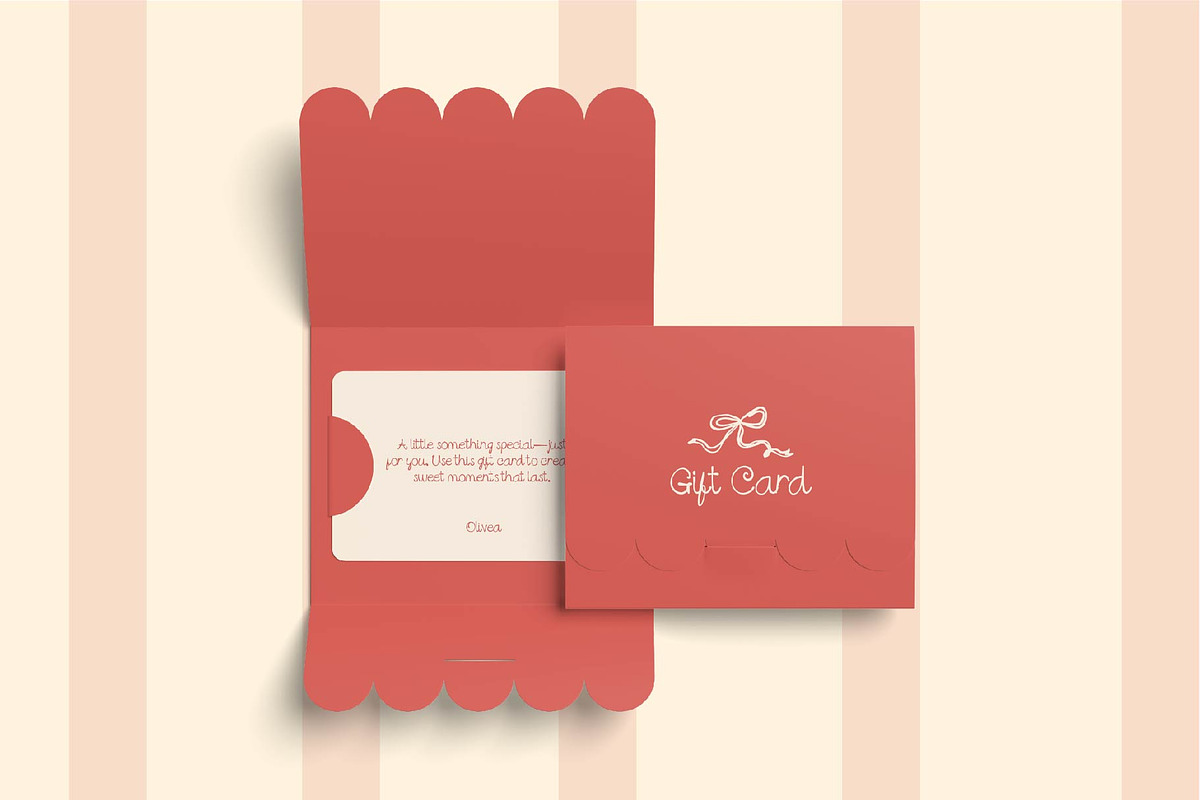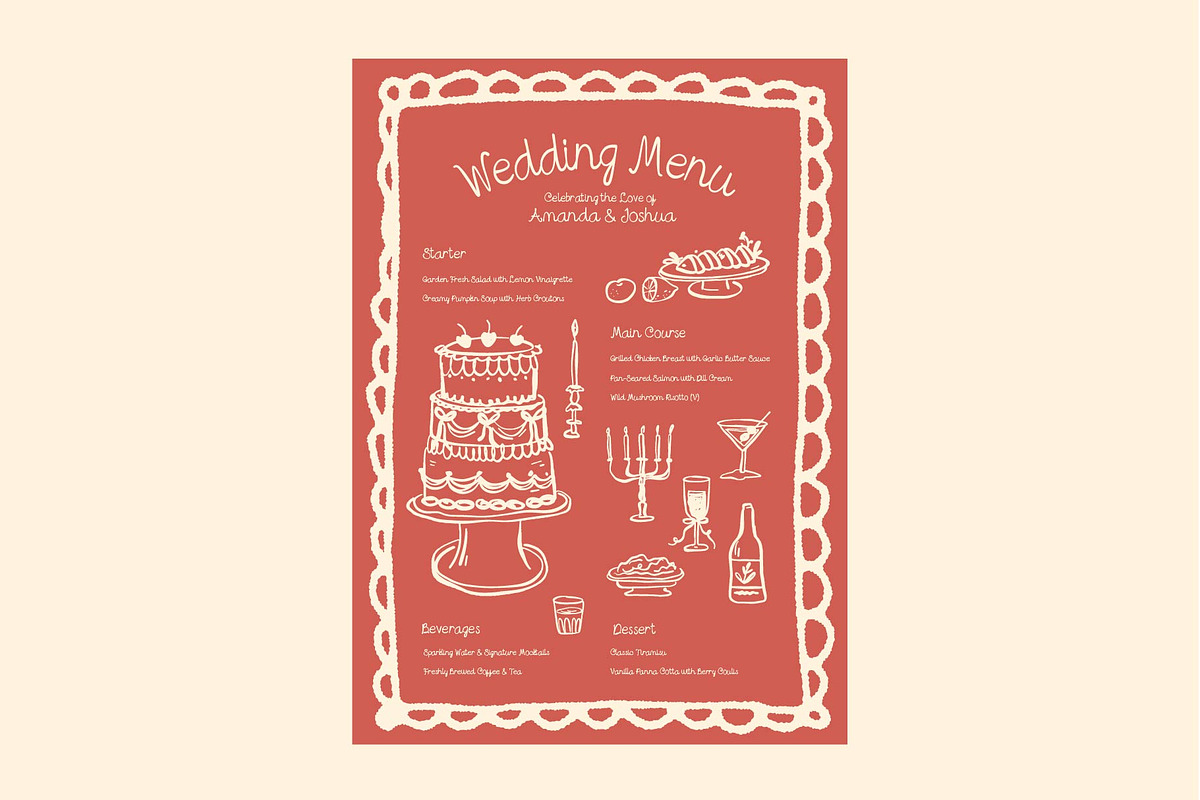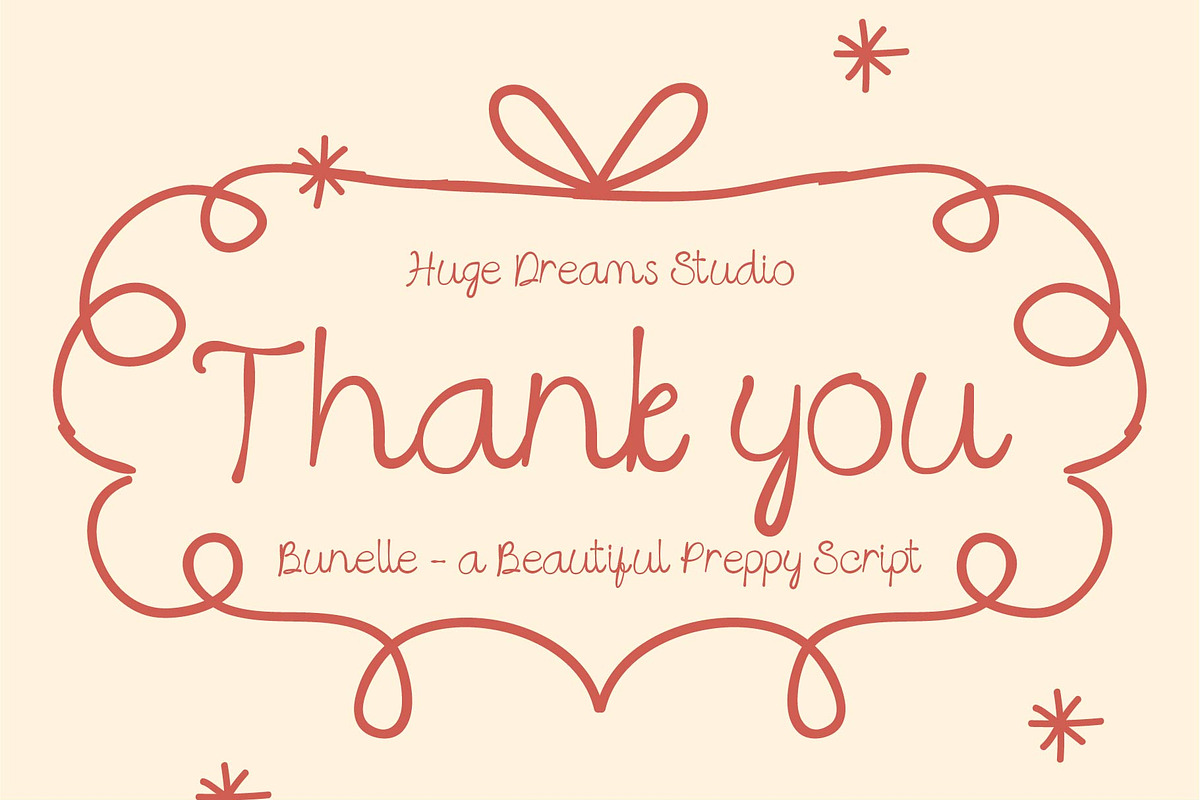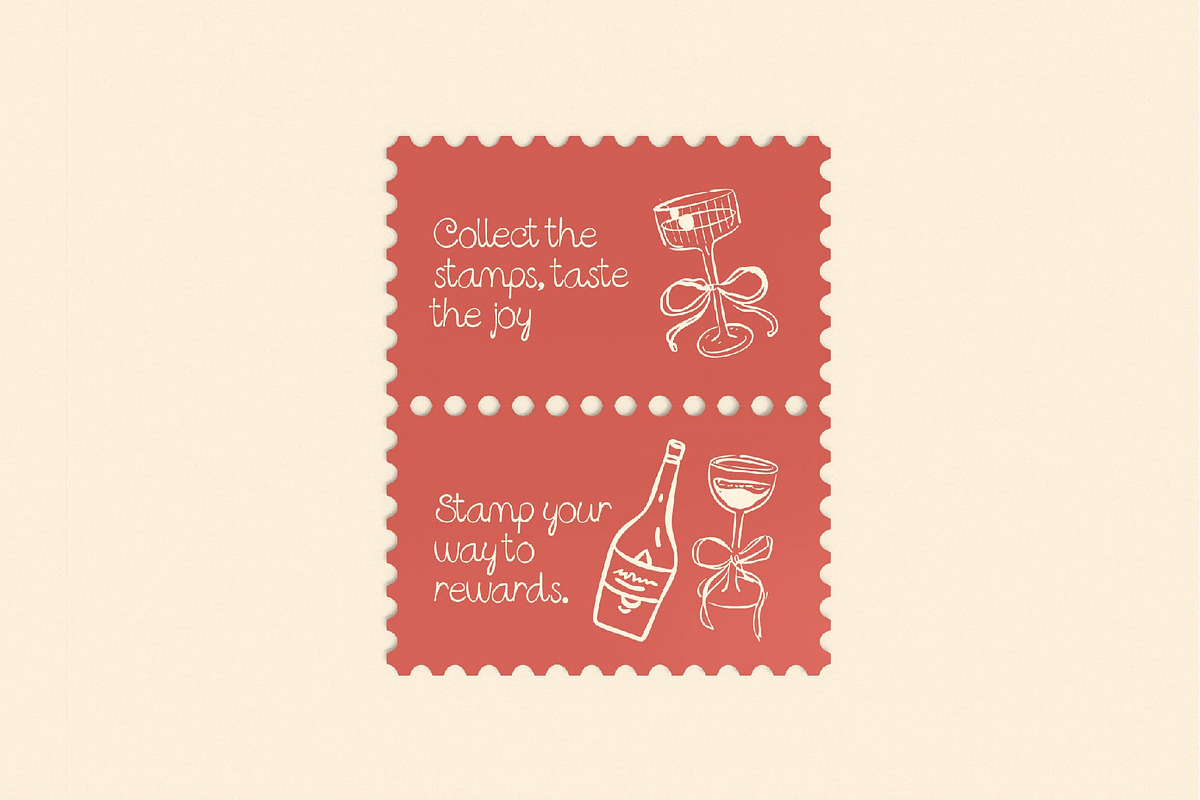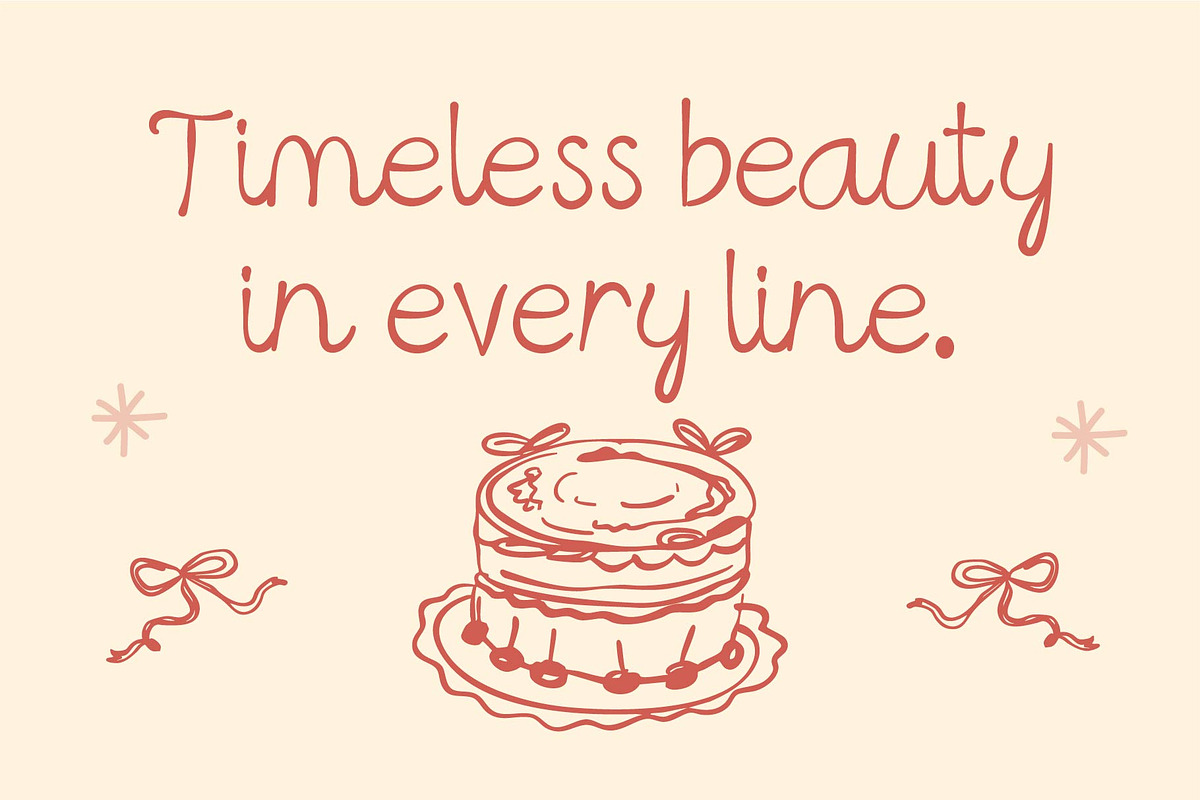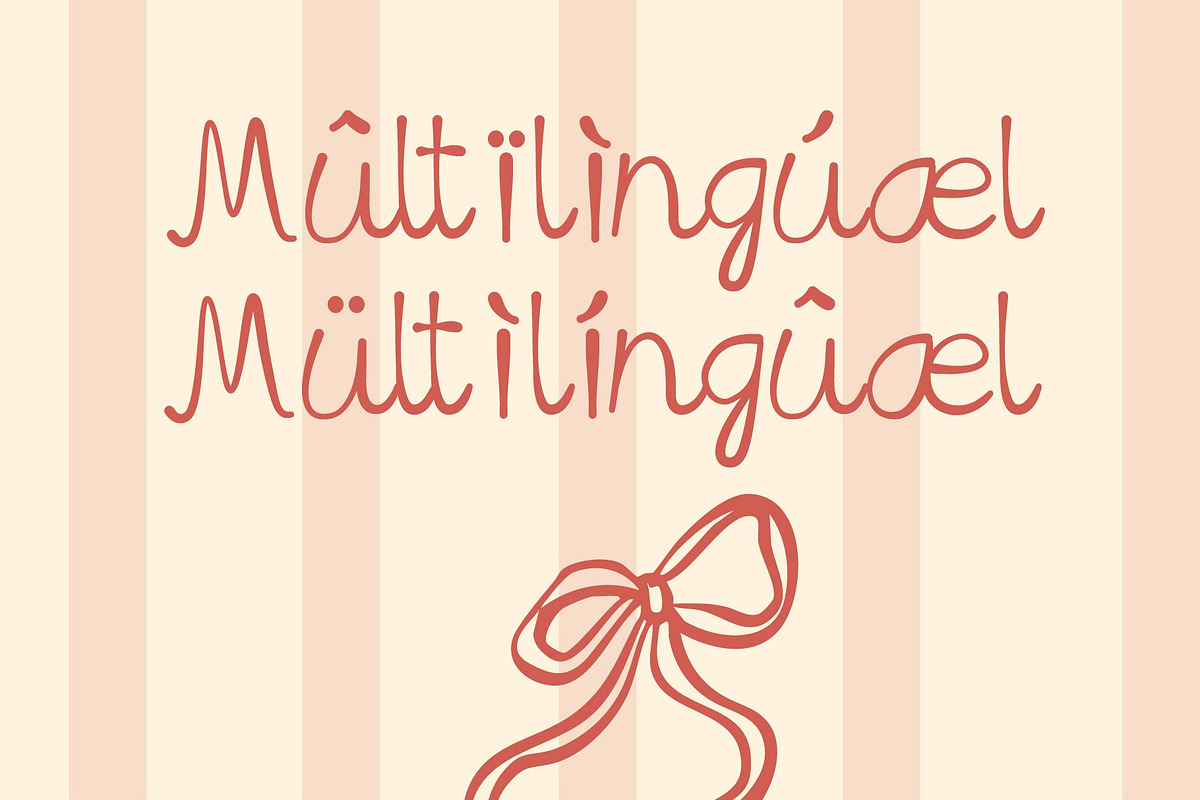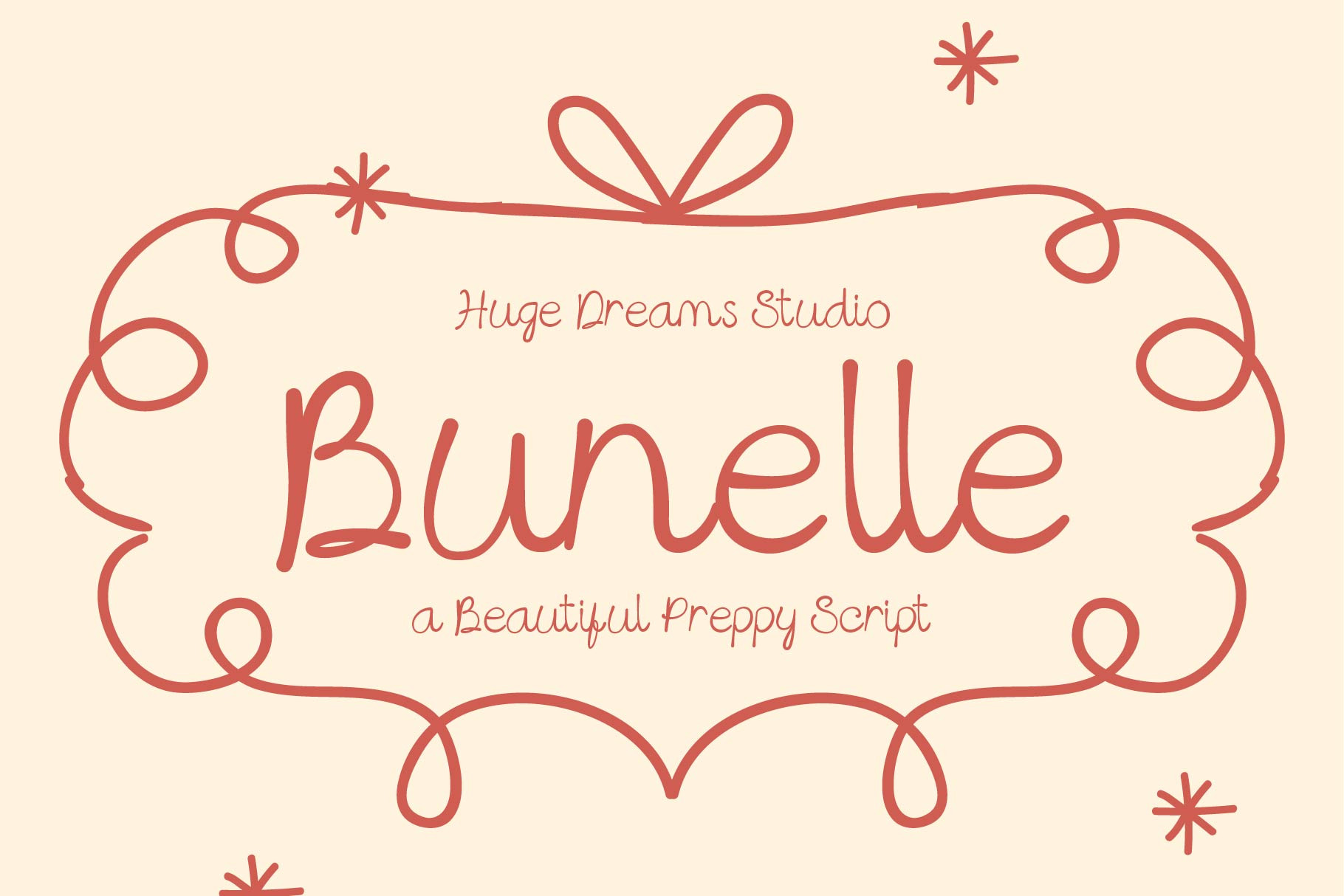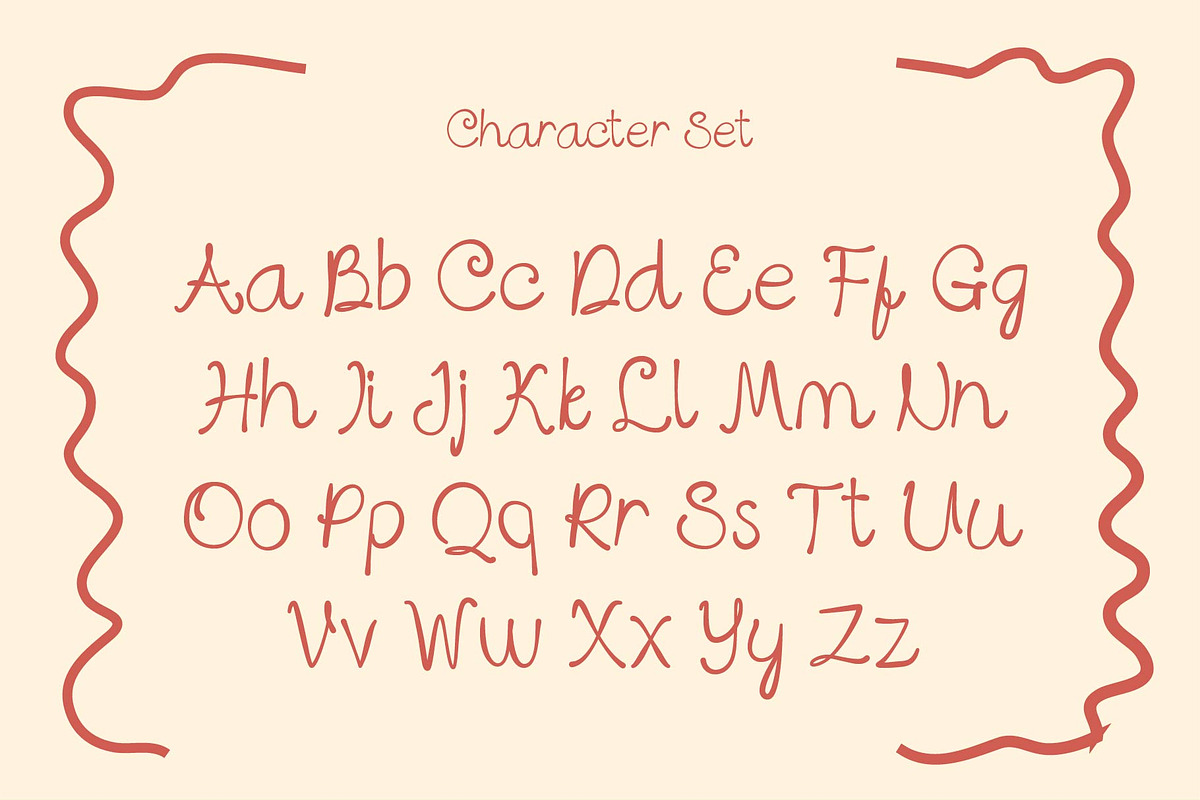
Bunelle – Elegant Handwriting Font
Bunelle is an elegant handwritten font designed to bring a touch of sophistication and warmth to your creative projects. With its smooth curves, delicate strokes, and graceful flow, Bunelle captures the beauty of modern calligraphy while keeping a natural, personal feel.
Perfect for branding, wedding invitations, logos, stationery, product packaging, quotes, social media posts, and any design that needs a refined handwritten touch. Bunelle’s stylish letterforms make every word feel intentional and effortlessly charming.
Bring elegance, personality, and timeless beauty to your designs with Bunelle – the handwriting font that speaks with grace.